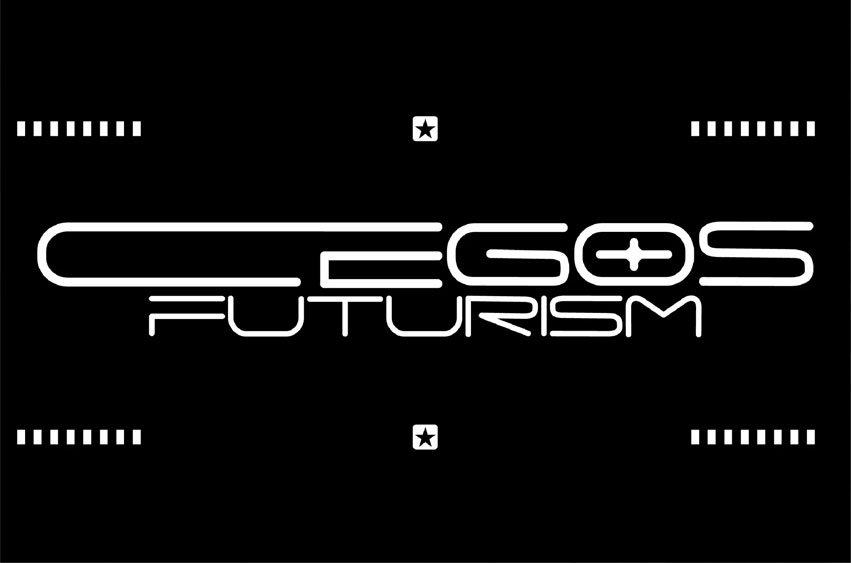
Cegos Font is a futuristic typeface that embodies sleek modernism and digital precision. Its clean geometric lines, balanced symmetry, and sharp edges evoke a sense of innovation and forward momentum.
Designed to represent the aesthetics of advanced technology and cybernetic culture, Cegos feels at home in sci-fi interfaces, tech branding, and visionary art.